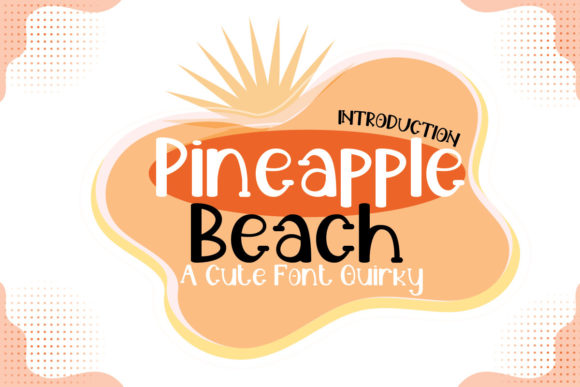
Journey into a world of creative delight with Pineapple Beach Font, a captivating display font designed to bring a burst of sunshine to your digital designs. Dive into a sea of vibrant possibilities as you explore the endless horizons of this charming font, perfect for adding a touch of warmth and cheer to your projects.
Unleash your creativity and embark on a voyage of self-expression with Pineapple Beach Font. Whether you're crafting handmade cards, designing eye-catching digital creations, delivering impactful presentations, or conjuring up heartfelt greeting cards, this font will effortlessly transform your visions into tangible masterpieces.
Picture this: a tropical paradise where colors dance and laughter fills the air. Pineapple Beach Font is your passport to this enchanting realm, inviting you to infuse your designs with the same vibrant energy. Its playful, hand-drawn characters exude a sense of joy and exuberance, captivating your audience with their undeniable charm.
Step into the spotlight and let Pineapple Beach Font amplify your message, making it resound with a unique personality. Its carefully crafted curves and whimsical details add depth and dimension to your creations, ensuring they stand out from the crowd. Whether you're a seasoned designer or just starting your creative journey, this font will effortlessly elevate your work, adding a touch of magic to every project.
With Pineapple Beach Font as your trusty companion, you'll never run out of inspiration. Its versatility knows no bounds, allowing you to effortlessly shift between various design styles and themes. Let your imagination soar as you explore the endless possibilities that await you within the realm of this remarkable font.
So, dive into the refreshing waters of Pineapple Beach Font today and let your creativity flourish. Its captivating charm and versatility will transform your designs into captivating masterpieces, leaving a lasting impression on all who encounter them. Embrace the joyous spirit of this font and embark on a creative adventure that will leave you feeling invigorated and inspired.